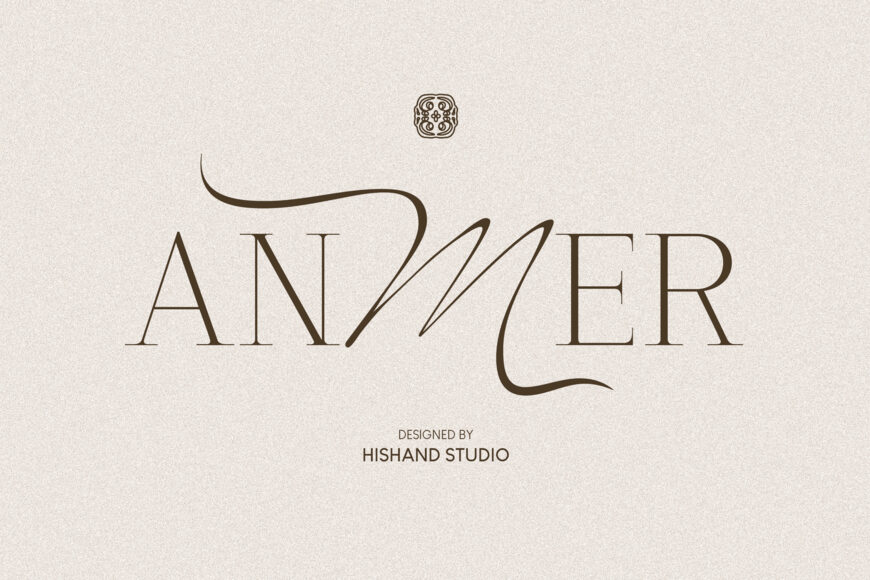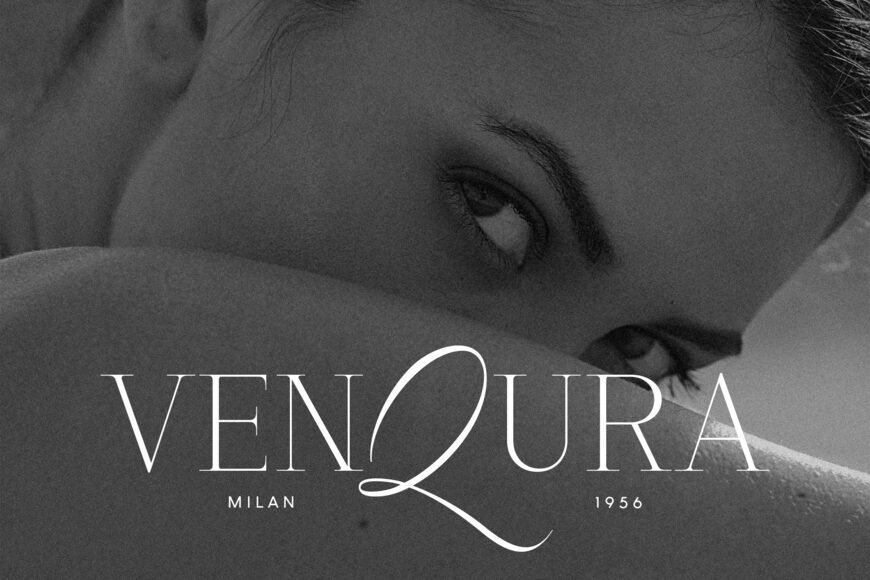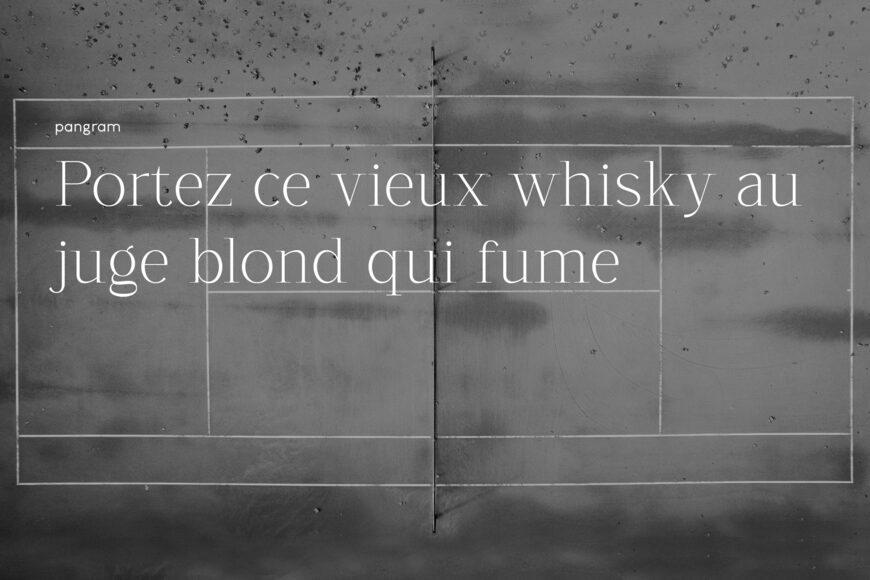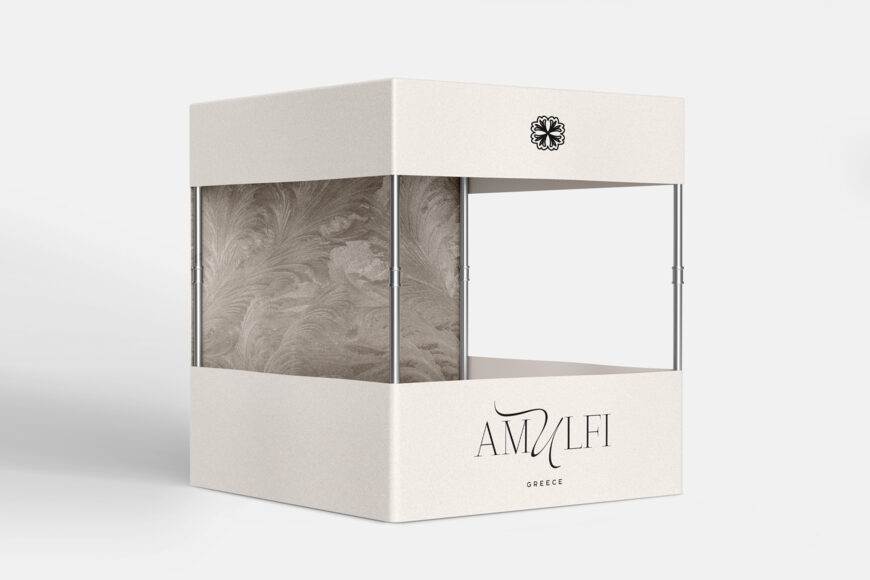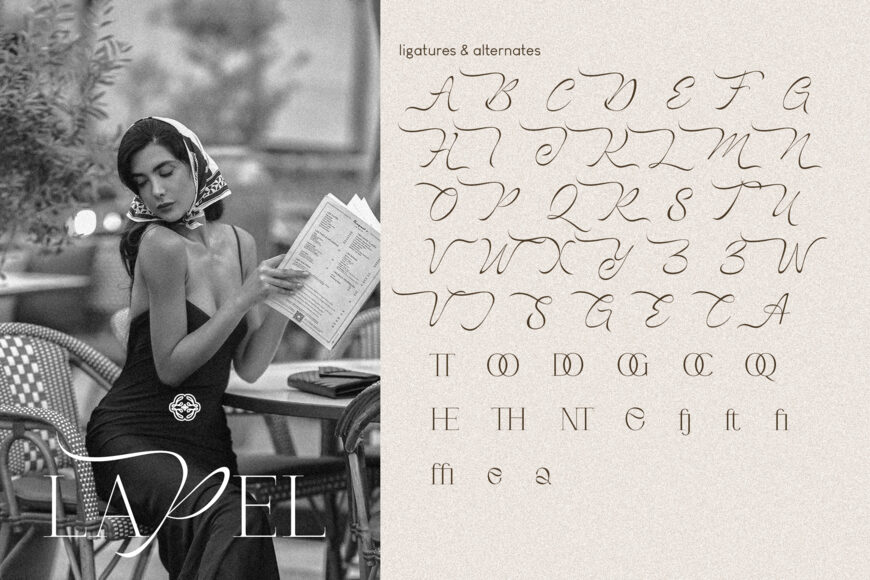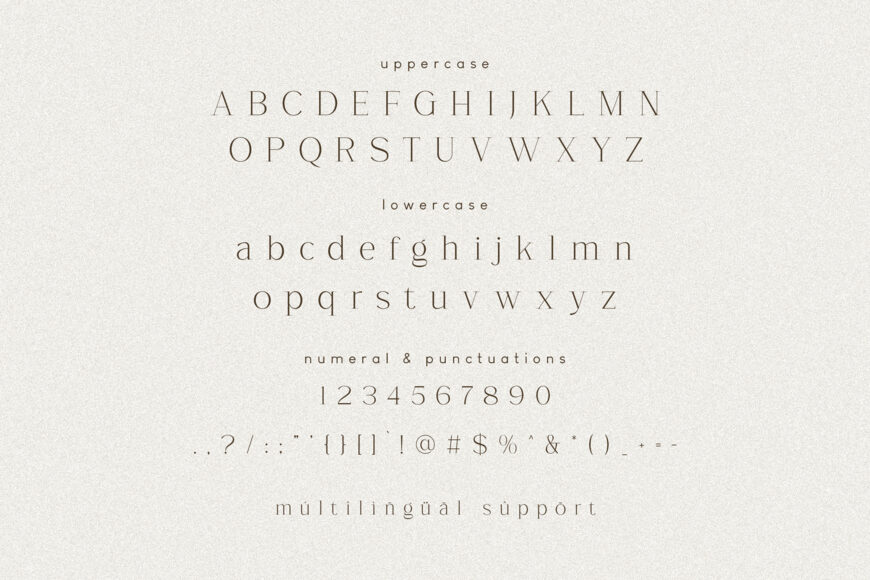
Anmer Elegant is a mixed font blending serif and script into a single, cohesive design. Most of the letters follow a clean, structured serif form, classic proportions, fine stroke contrast, small precise serifs, giving the word a foundation that feels traditional and dependable. Then, without warning, a script character breaks the pattern.
It shifts into a flowing, connected style that loops above and below the baseline, carrying real energy and motion into an otherwise composed word. The two styles sit side by side, serif discipline against script movement, and that contrast is the whole point of the design. Nothing about it feels accidental.